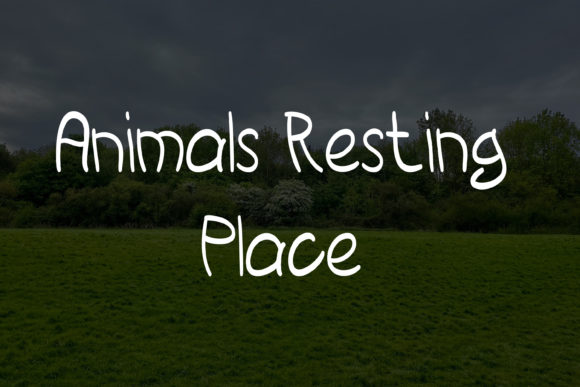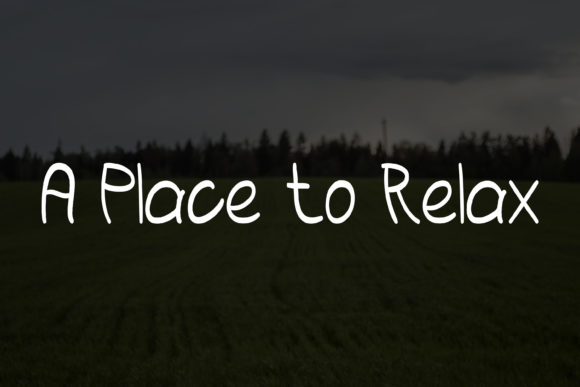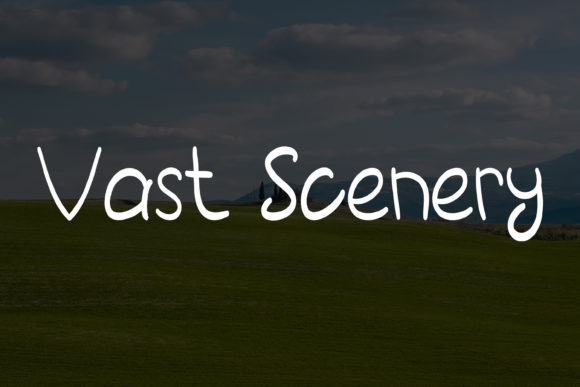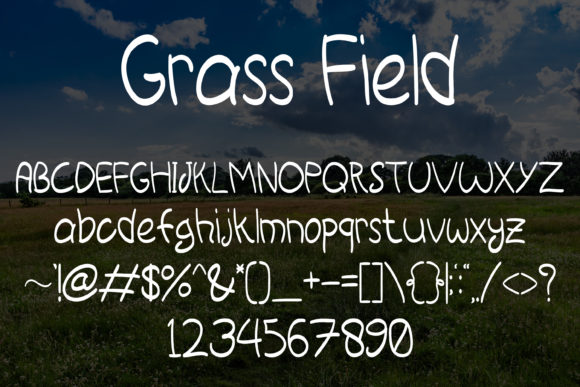
Introducing Grass Field Font: The Perfect Choice for Relaxed and Quirky Designs
Are you tired of using the same old fonts for your designs? Do you want to add a touch of whimsy and personality to your creations? Look no further than the Grass Field font, a simple, quirky, and adaptable handwritten font that’s perfect for adding a relaxed touch to any project.
The Characteristics of Grass Field Font
Grass Field font is a unique and charming handwritten font that’s designed to bring a sense of informality and casualness to your designs. Its quirky and playful style makes it perfect for projects that require a personal touch, such as:
- Handmade crafts and DIY projects
- Blog posts and social media graphics
- Invitations and party decorations
- Branding and packaging for small businesses
With its irregular lettering and uneven baseline, Grass Field font has a delightfully handmade feel that’s sure to capture the attention of your audience. Whether you’re creating a logo, a poster, or a digital graphic, this font is sure to add a touch of personality and whimsy to your design.
Why Choose Grass Field Font?
So why choose Grass Field font over other fonts? Here are just a few reasons why this font stands out:
- Unique and quirky style: Grass Field font has a one-of-a-kind look that’s sure to make your designs stand out from the crowd.
- Adaptable and versatile: This font can be used for a wide range of projects, from digital graphics to print materials.
- Easy to read: Despite its informal style, Grass Field font is surprisingly easy to read, making it perfect for body text and headlines.
- Perfect for handmade and DIY projects: The handmade feel of Grass Field font makes it a natural fit for handmade crafts, DIY projects, and other creative endeavors.
How to Use Grass Field Font in Your Designs
Using Grass Field font in your designs is easy! Here are a few tips to get you started:
- Pair it with bold fonts: Combine Grass Field font with bold, sans-serif fonts for a striking contrast.
- Use it for headings and titles: Grass Field font is perfect for headings and titles, where its quirky style can really shine.
- Add some texture: Experiment with adding texture to your design, such as subtle patterns or backgrounds, to really make Grass Field font pop.
If you’re looking for a font that adds a touch of whimsy and personality to your designs, look no further than Grass Field font. With its unique and quirky style, adaptable and versatile design, and easy-to-read lettering, this font is sure to become a go-to choice for designers and crafters alike. So why wait? Download Grass Field font today and start adding a relaxed touch to your creations!
Key Features of Grass Field Font
| Font Style | Handwritten, Quirky, Informal |
| Lettering Style | Irregular, Handmade |
| Adaptability | Versatile, Suitable for a wide range of projects |
| Readability | Easy to read, Suitable for body text and headlines |
Overall, Grass Field font is a fantastic choice for designers and crafters looking to add a touch of personality and whimsy to their creations. With its unique style, adaptable design, and easy-to-read lettering, this font is sure to become a favorite in your design arsenal.